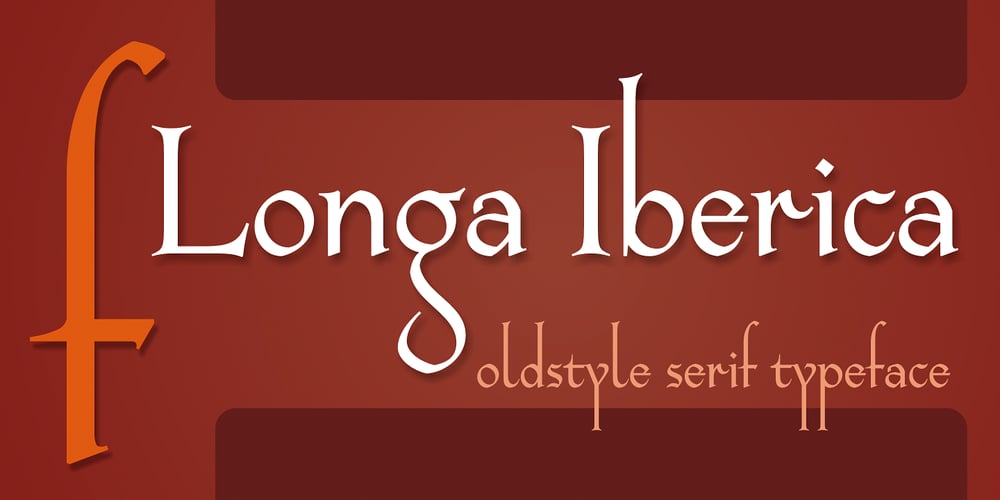
Longa Iberica Font Family was designed by Paweł Burgiel and published by Paweł Burgiel. Longa Iberica contains 2 styles and family package options. Longa Iberica is a serif typeface inspired by ancient scripts (Visisigothic, Proto-Gothic, Gothic). It has a long ascender and descender, small x-height and low-profile lining figures. Include automatic ligature creation, stylistic alternates and historical letterforms, lining and oldstyle numerals, fractions, Roman numerals adjusted to figure height (lining and oldstyle) and ordinal letters. Character set contains the complete Unicode Latin 1252 (Western European; ANSI), 1250 Latin 2 (Central European), 1254 Turkish, 1257 Baltic. Supported OpenType features: Acces All Alternates, Alternative Fractions, Capital Spacing, Case-Sensitive Forms, Contextual Alternates, Contextual Swash, Fractions, Historical Forms, Kerning, Lining Figures, Localized Forms, Oldstyle Figures, Ordinals, Proportional Figures, Slashed Zero, Stylistic Alternates, Stylistic Set (1-20), Superscript, Swash, Tabular Figures. Kerning is prepared as single (‘flat’) table for maximum possible compatibility with older software.